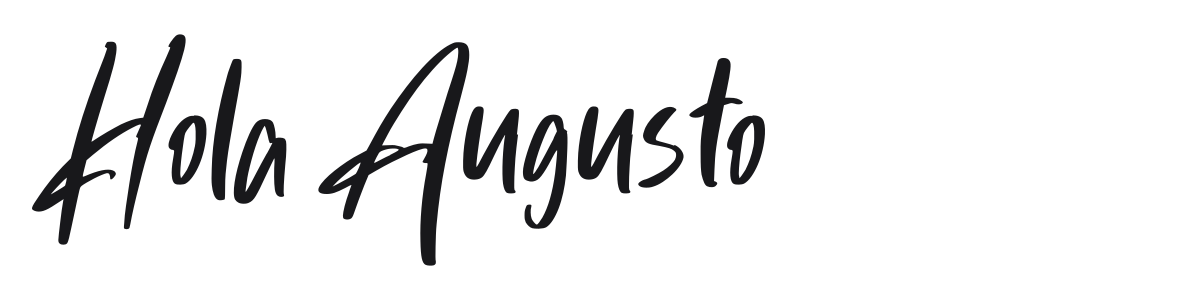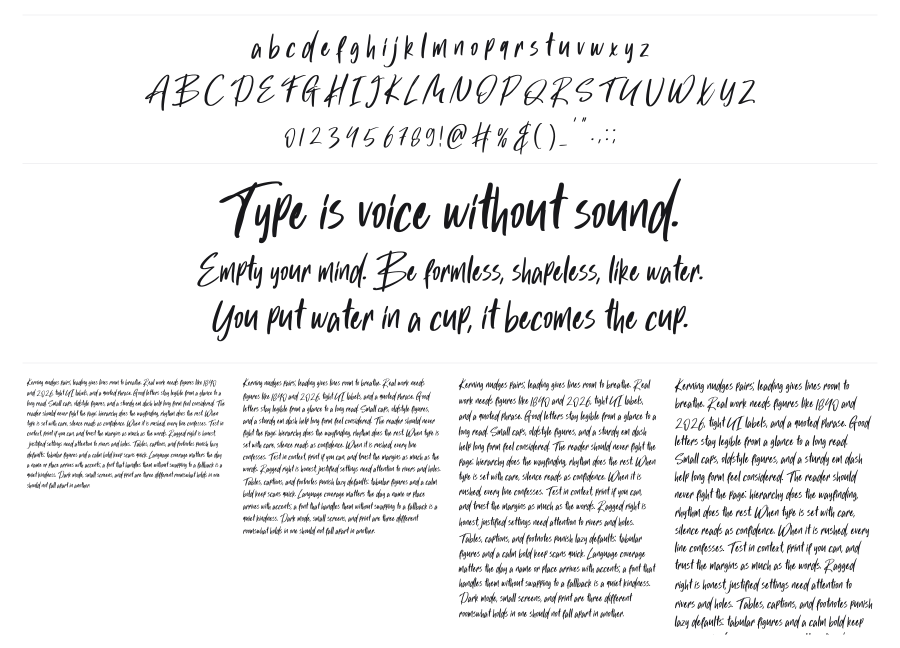
Hola Augusto
Hola Augusto is a casual brush script with the loose, energetic feel of ink on paper. Thick downstrokes taper into thin hairline curves, giving each character a natural painted quality without feeling forced. It sits comfortably on packaging, social media graphics, and anywhere a brand wants to feel handcrafted and approachable.